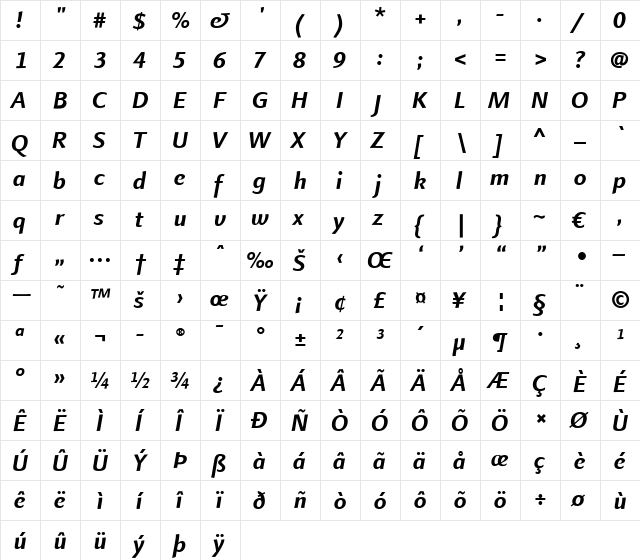
LTFinnegan Regular Bold Italic
| Designer | Juergen Weltin |
Design Context for LTFinnegan Regular Typeface
LTFinnegan Regular is a composed and adaptable typeface that performs quietly and consistently across a wide range of design contexts. The slanted form adds forward momentum and visual energy. The heavy weight commands attention and anchors typographic hierarchies.